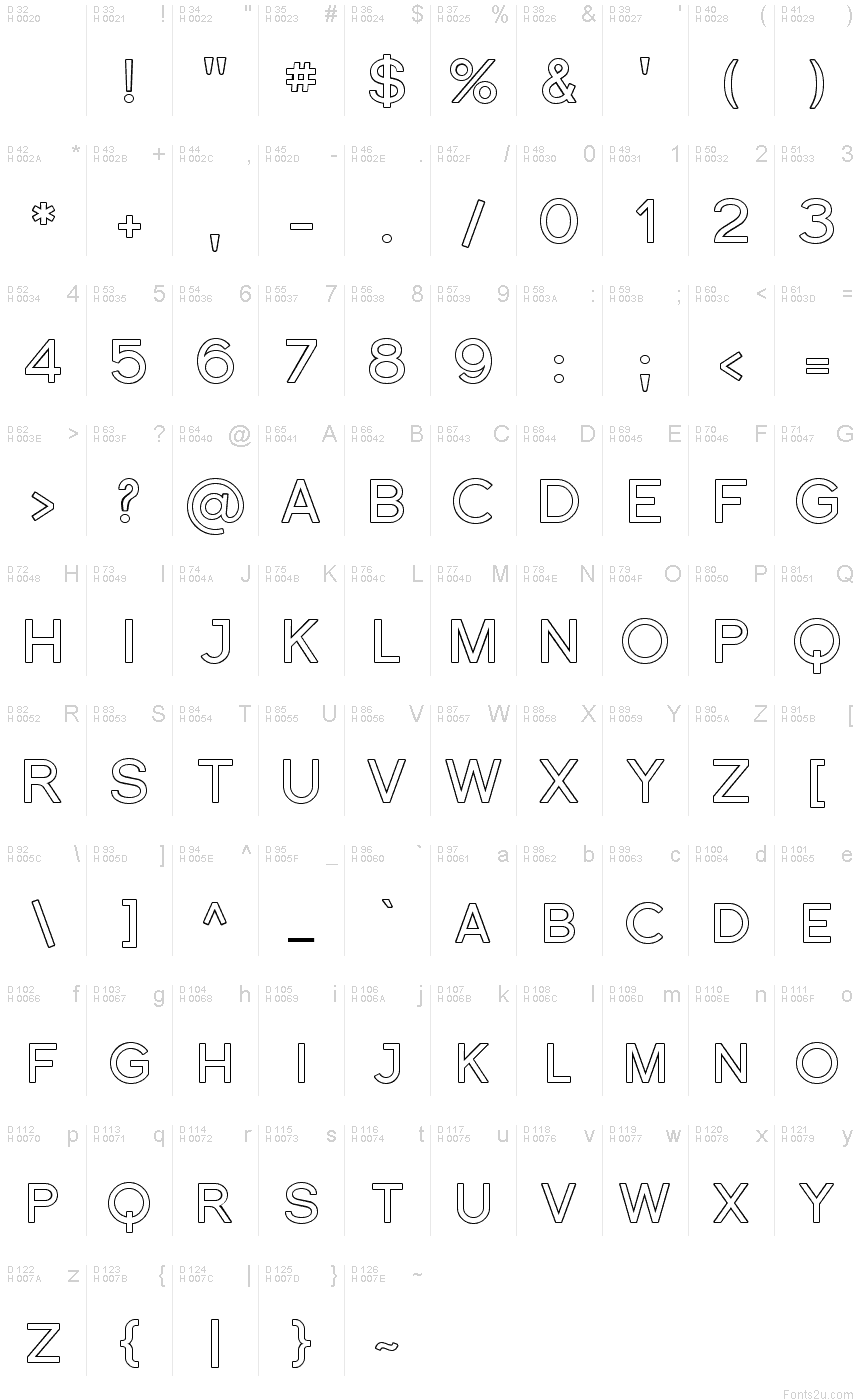
Florencesans SC Outline
Florencesans SC Outline font by Derek Vogelpohl is a free outline sans serif typeface with a cool, wireframe feel. Its single-weight strokes trace out clean geometric forms, creating airy letters that feel both technical and playful, like neon tubing without the glow. The hollow interiors invite color, texture, and layering, so it’s easy to make type that looks custom without much effort.
Using Florencesans SC Outline, headlines and wordmarks snap into focus while still feeling light and spacious. This free font works beautifully for posters, logos, packaging, album covers, editorial titles, and social graphics where you want big, readable type with a subtle twist. Try pairing it with a simple solid sans for body copy, and keep Florencesans SC Outline large so its crisp contours stay sharp and legible.